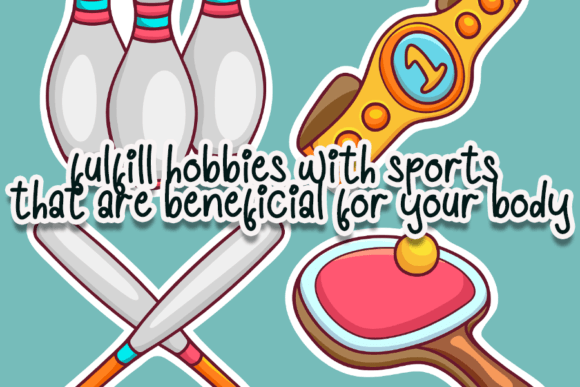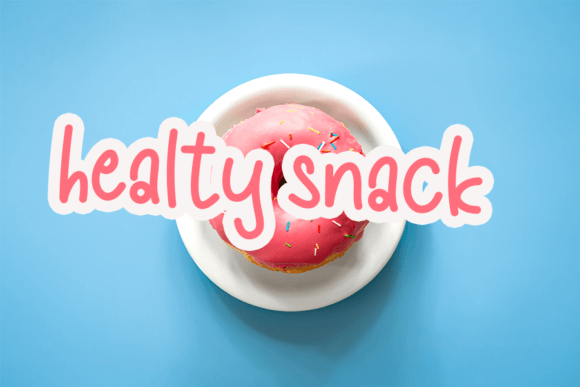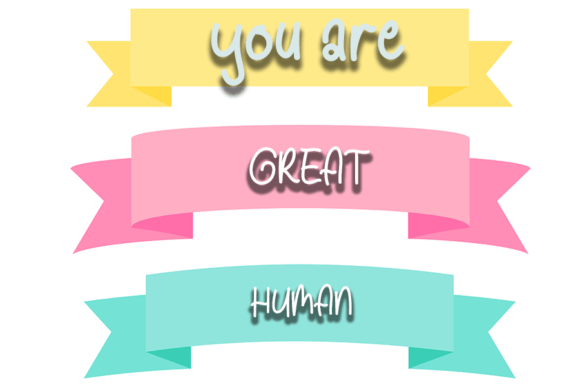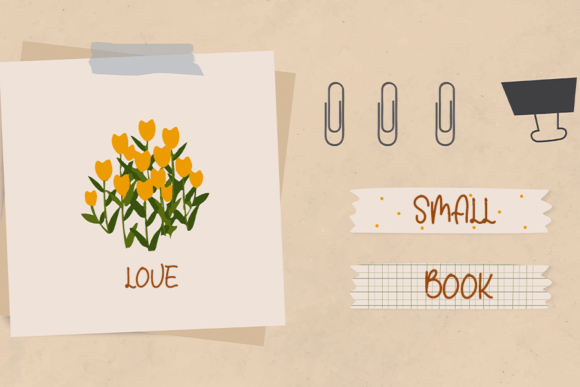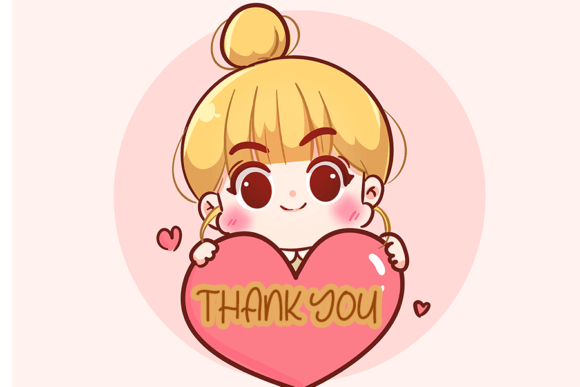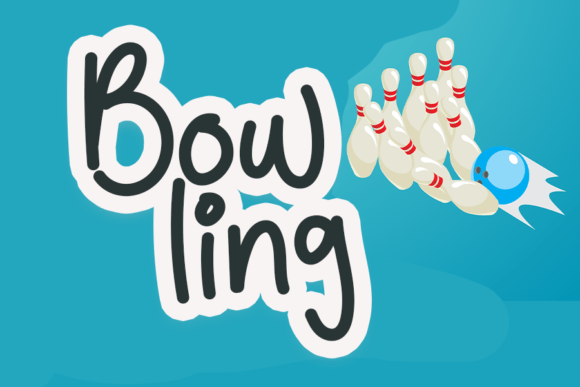
The Quirky Charm of Bowling Font: A Designer’s Delight
I’ll never forget the time I was working on a project for a client who wanted a fun, playful vibe for their brand. I had spent hours scouring the internet for the perfect font, but nothing seemed quite right. That was until I stumbled upon Bowling Font. Its quirky, handwritten charm instantly caught my eye, and I knew I had found the perfect fit. In this article, I’ll share my experience with Bowling Font, its unique features, and how to make the most of it in your designs.
An Honest Review of Bowling Font
- ✅ Unique and quirky vibe that’s perfect for friendly, approachable designs
- ✅ Handwritten feel that’s both personal and playful
- ✅ Highly versatile and can be used for a wide range of projects, from branding to invitations
- ✅ Easy to read and understand, even at smaller font sizes
- ⚠️ Some letters may appear a bit cramped or uneven, which can be adjusted with kerning
- ⚠️ Limited availability of certain special characters or glyphs
The Backstory of Bowling Font
Bowling Font was designed with the intention of creating a unique, handwritten font that captures the spirit of fun and playfulness. The designer aimed to create a font that’s both quirky and charming, perfect for designs that require a friendly touch. While the exact inspiration behind Bowling Font may be unclear, its delightful personality has made it a favorite among designers and crafters.
Q: What type of projects is Bowling Font best suited for?
A: Bowling Font is highly versatile and can be used for a wide range of projects, including branding, invitations, social media graphics, and more.
Q: Is Bowling Font easy to read?
A: Yes, Bowling Font is generally easy to read, even at smaller font sizes. However, some letters may appear a bit cramped or uneven, which can be adjusted with kerning.
Q: Can I use Bowling Font with other fonts?
A: Yes, Bowling Font can be paired with other fonts to create a unique and interesting design. Experiment with different font combinations to find the perfect fit for your project.